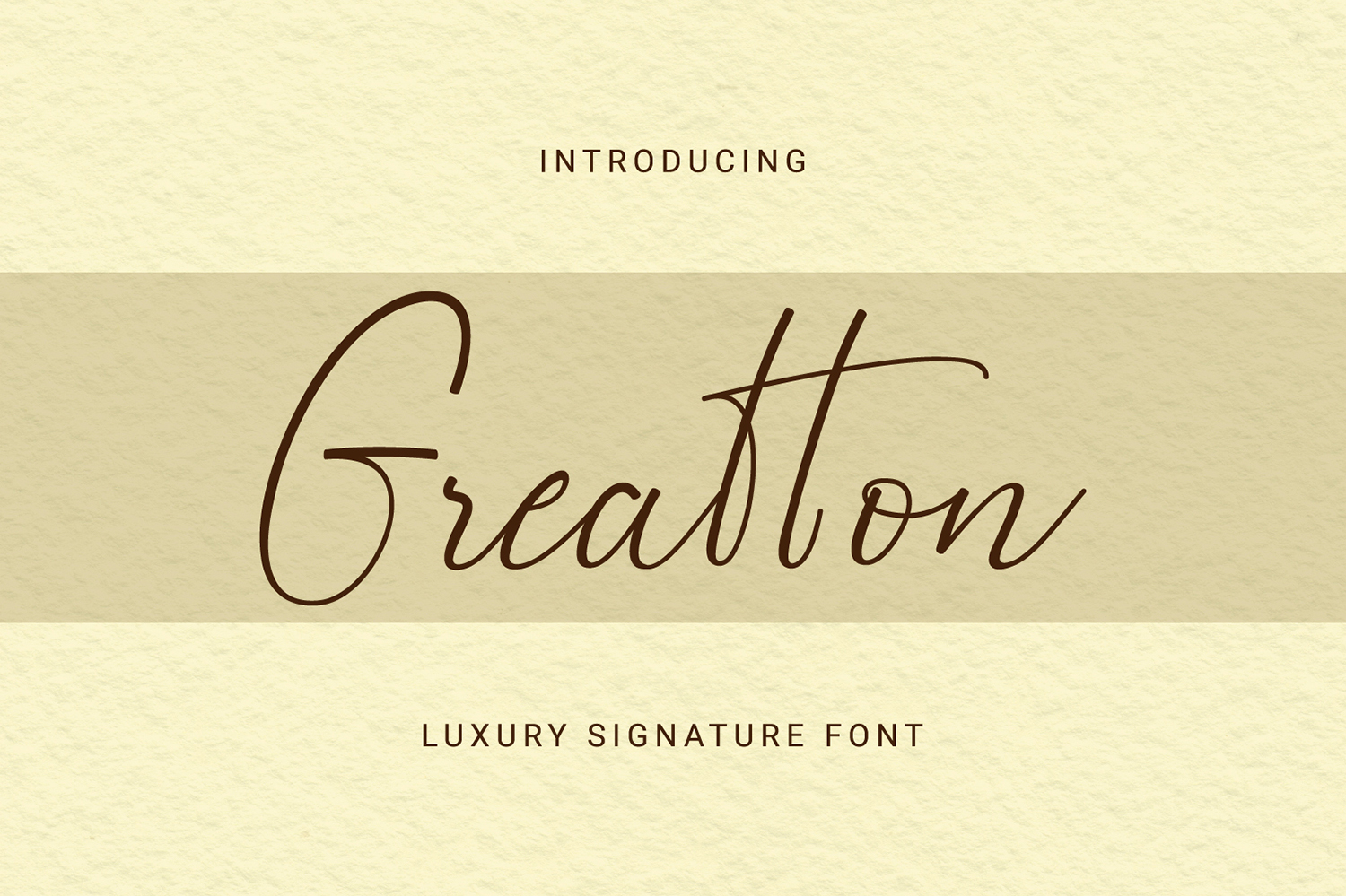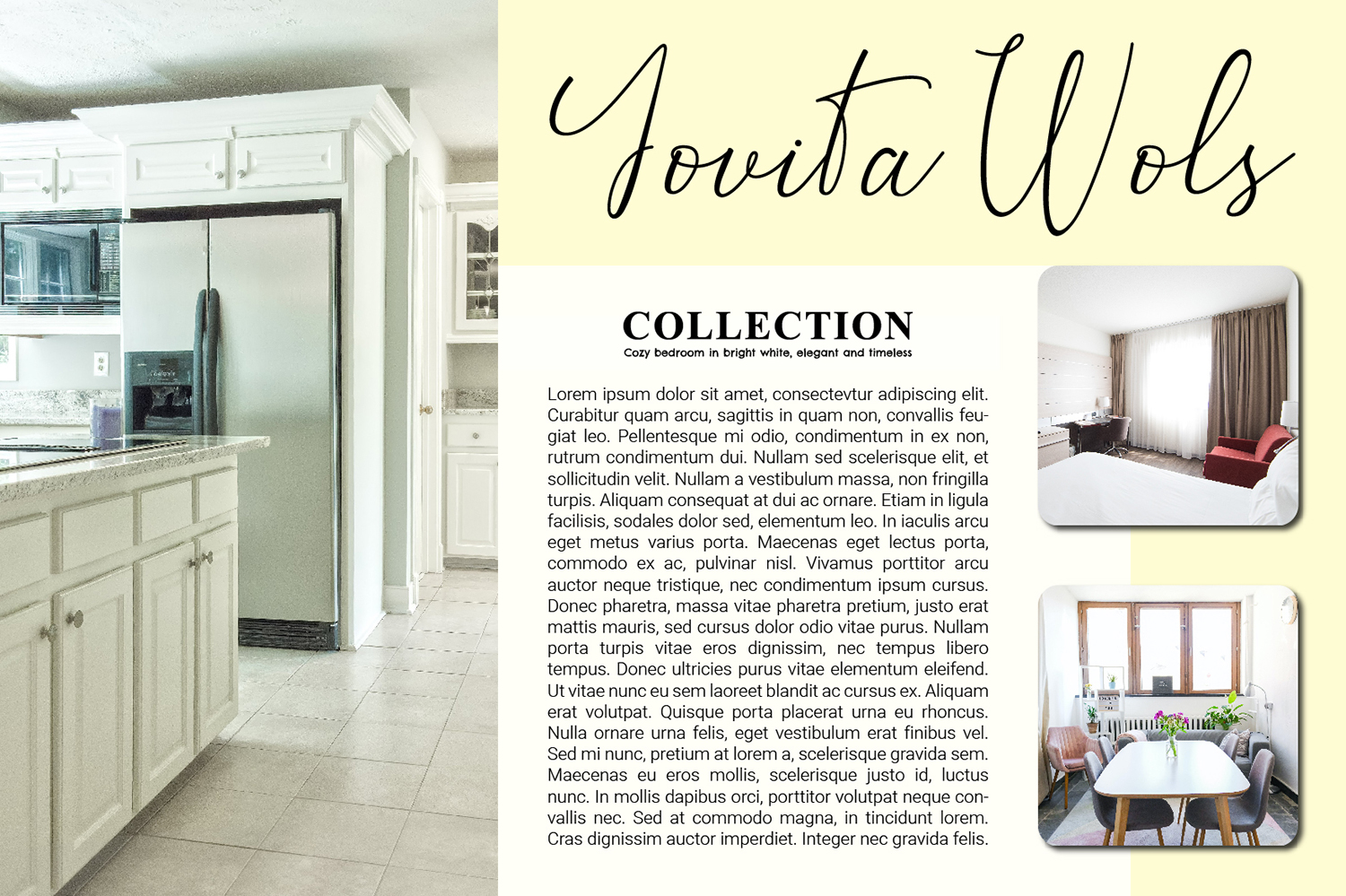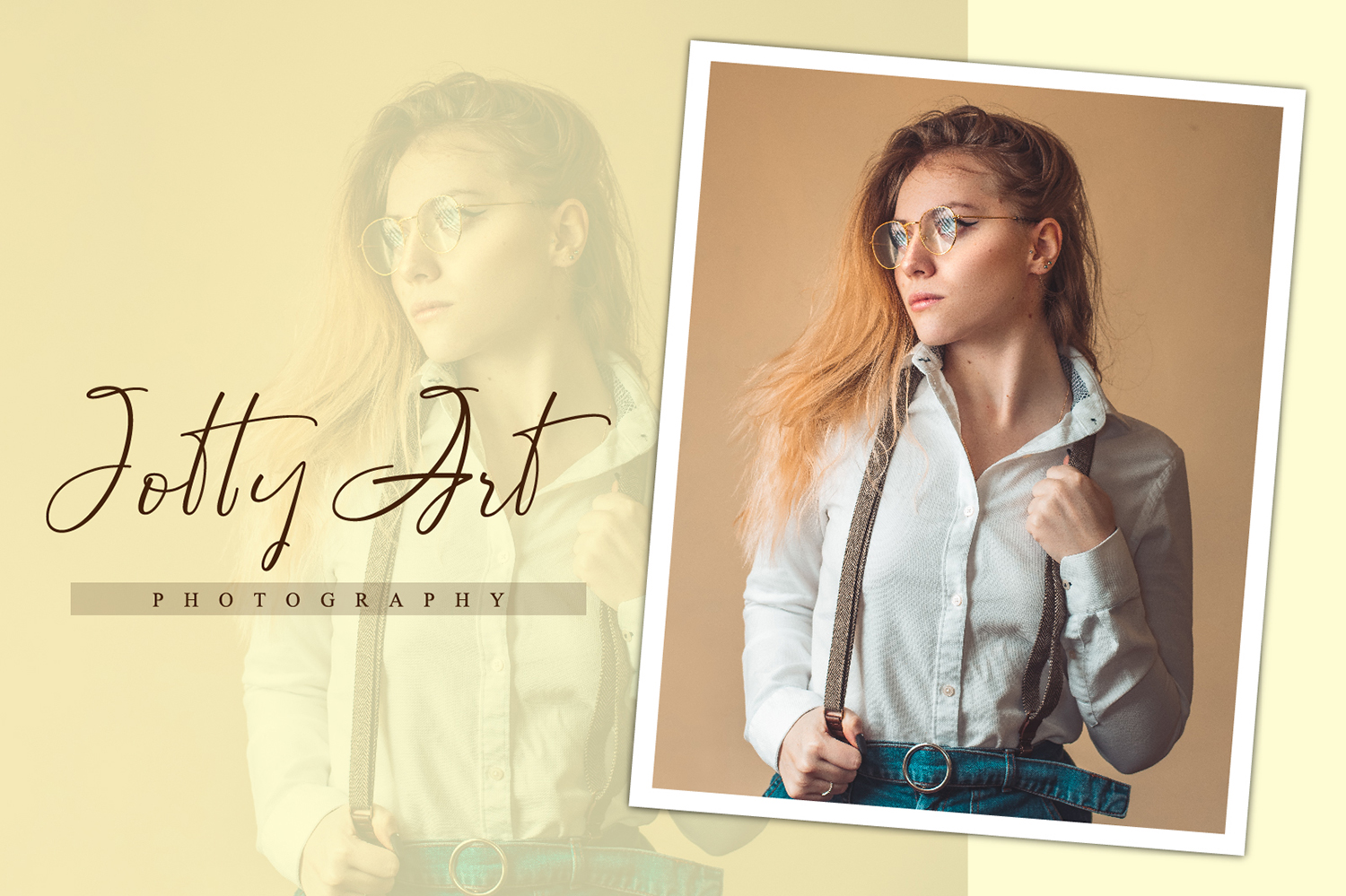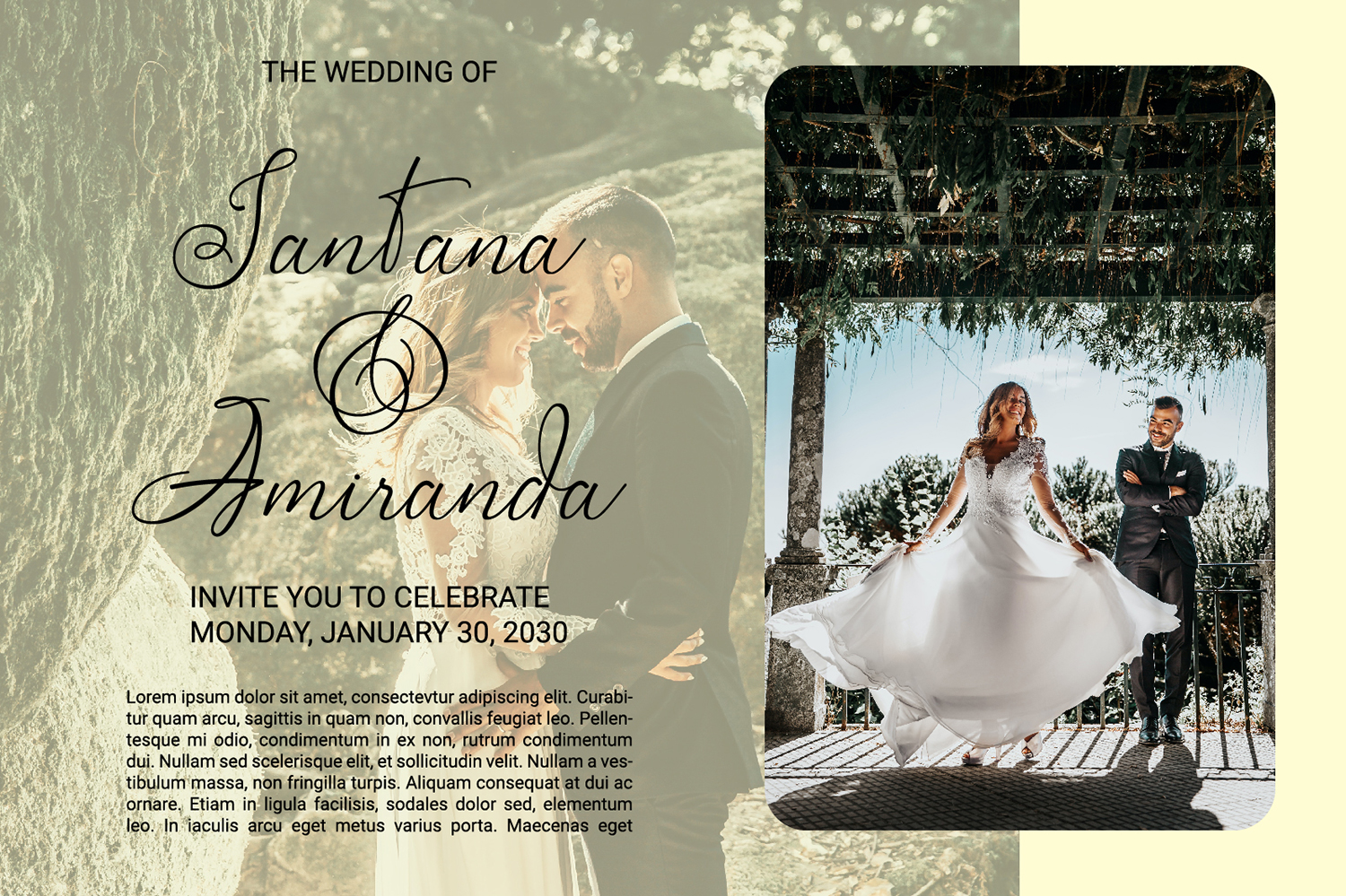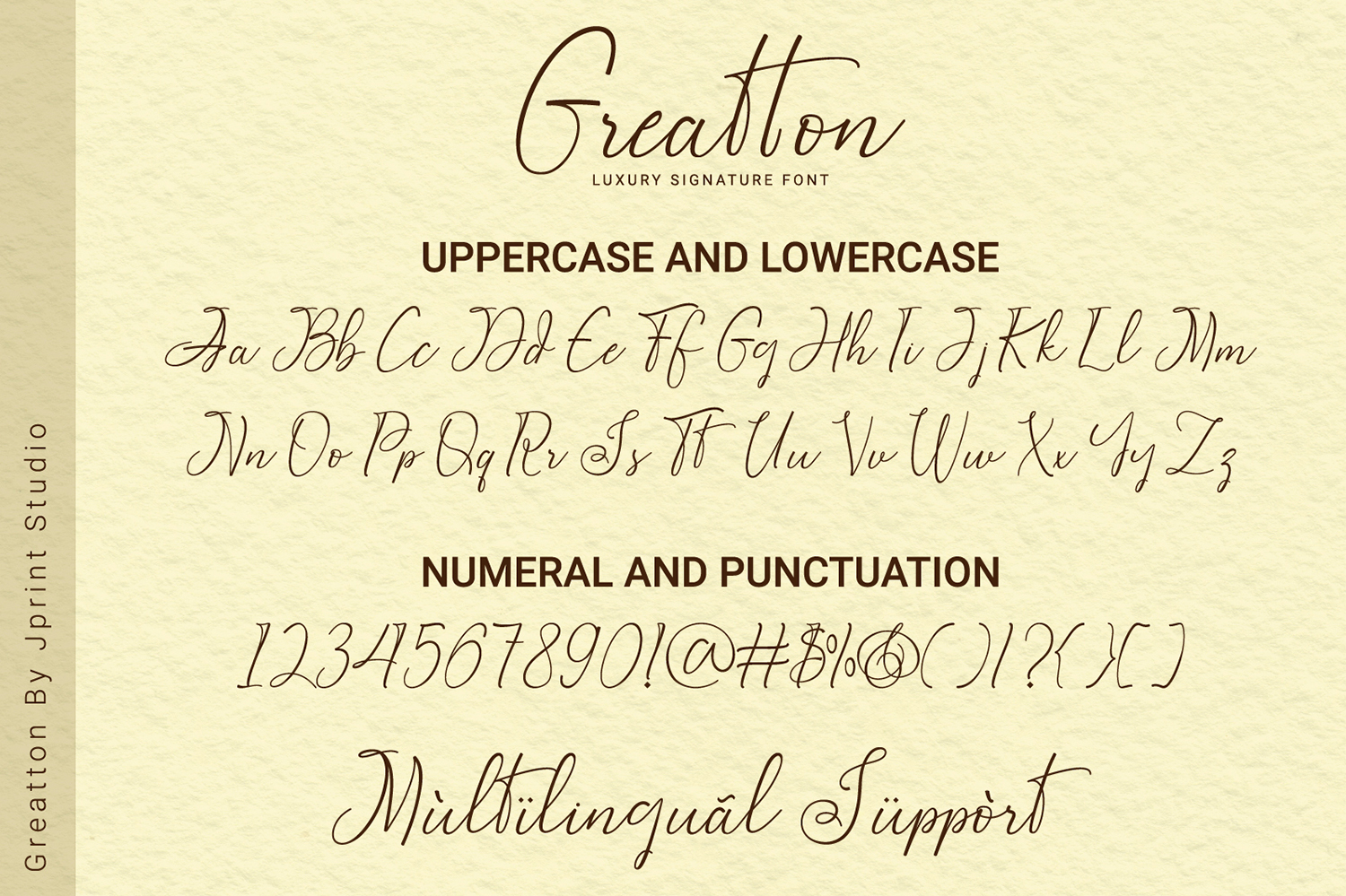
Greatton Free Font
Meet Greatton Free Font – an exquisite and graceful light handwritten font that emanates a distinct charm and delivers an impressive impact. Elevate your design projects with a touch of luxury using this beautiful font!
Unleash the captivating power of “Greatton” as it effortlessly enhances the visual appeal of any creative endeavor. Whether you’re working on invitations, branding, social media graphics, or any other design project, “Greatton” will add a luxurious spark that sets your work apart.
Don’t miss the opportunity to create mesmerizing designs with “Greatton.” Embrace its unique feel and watch it transform your creations into true works of art. Get your hands on this remarkable font and experience the stunning impact it brings to your projects. This free typeface was designed by a talented Jprint Studio. If you like it don’t forget to check out the full version.